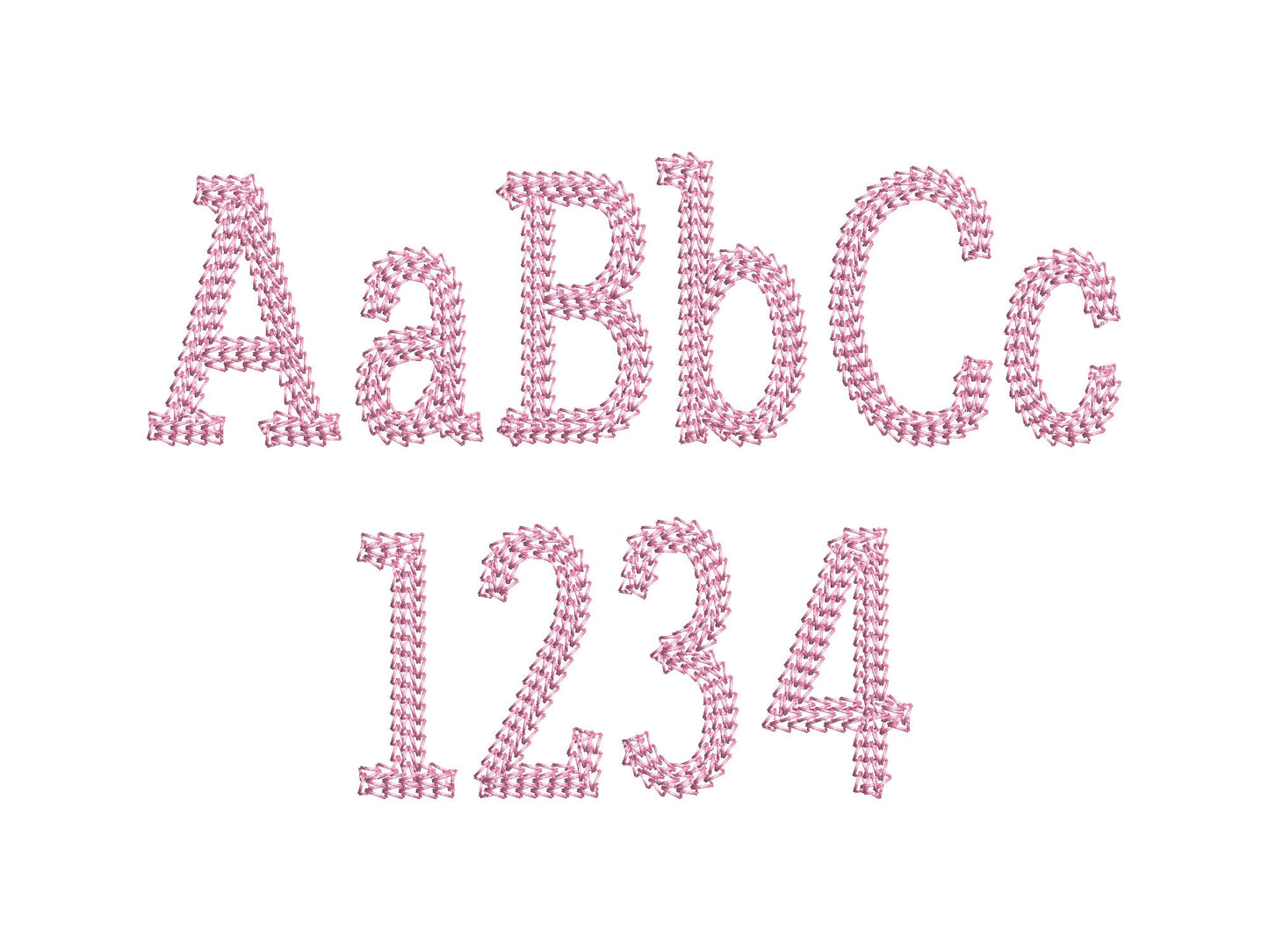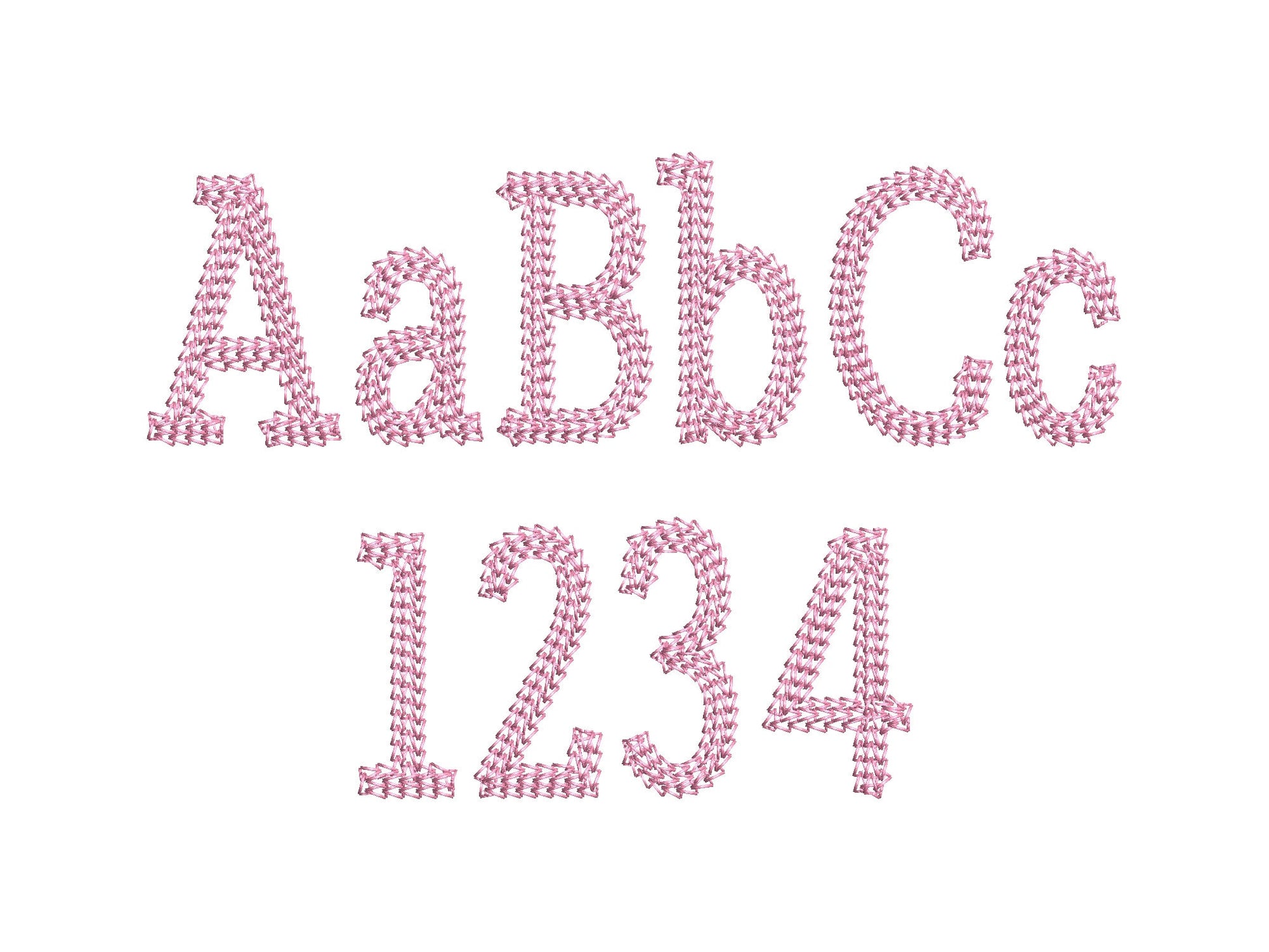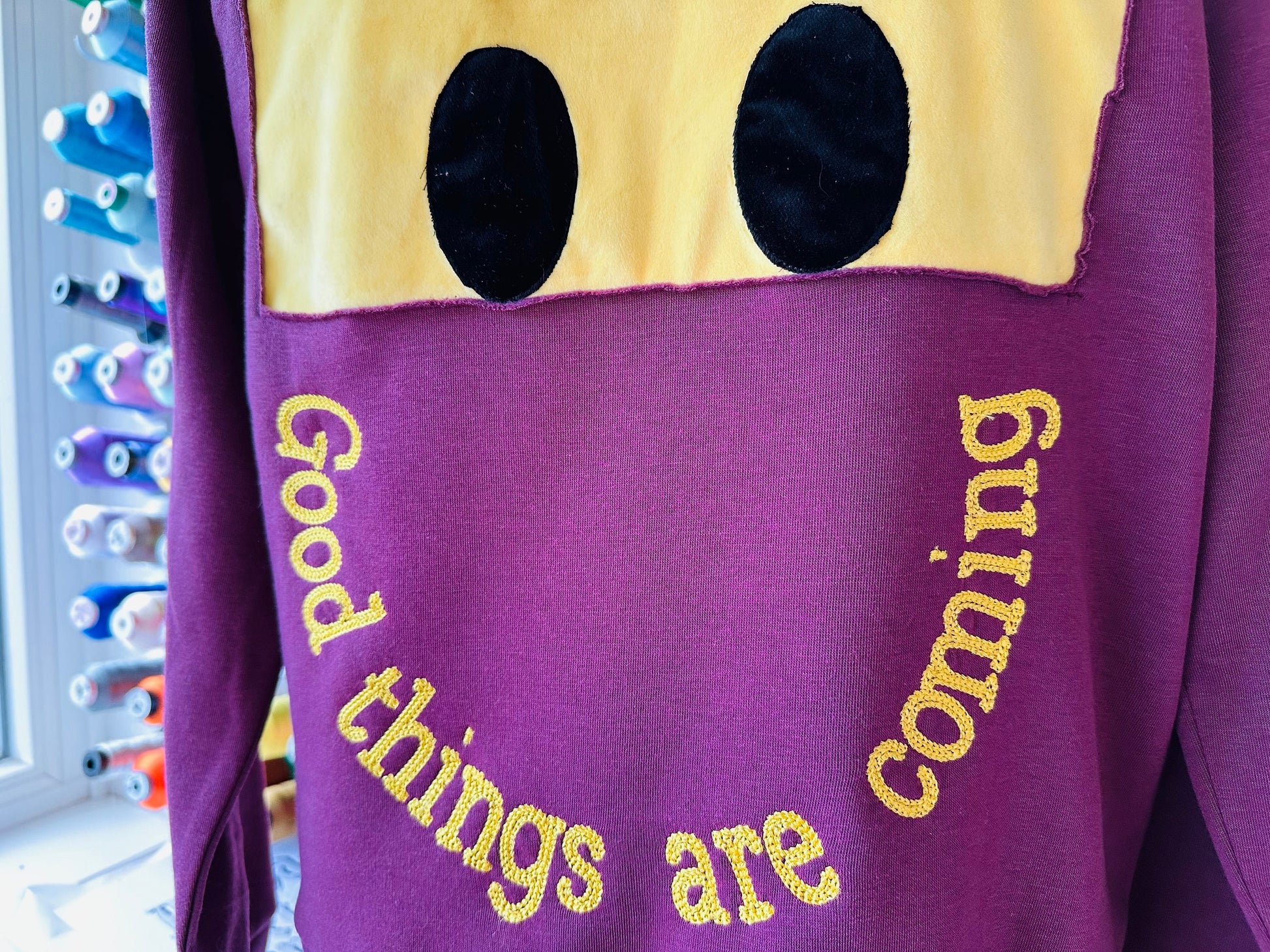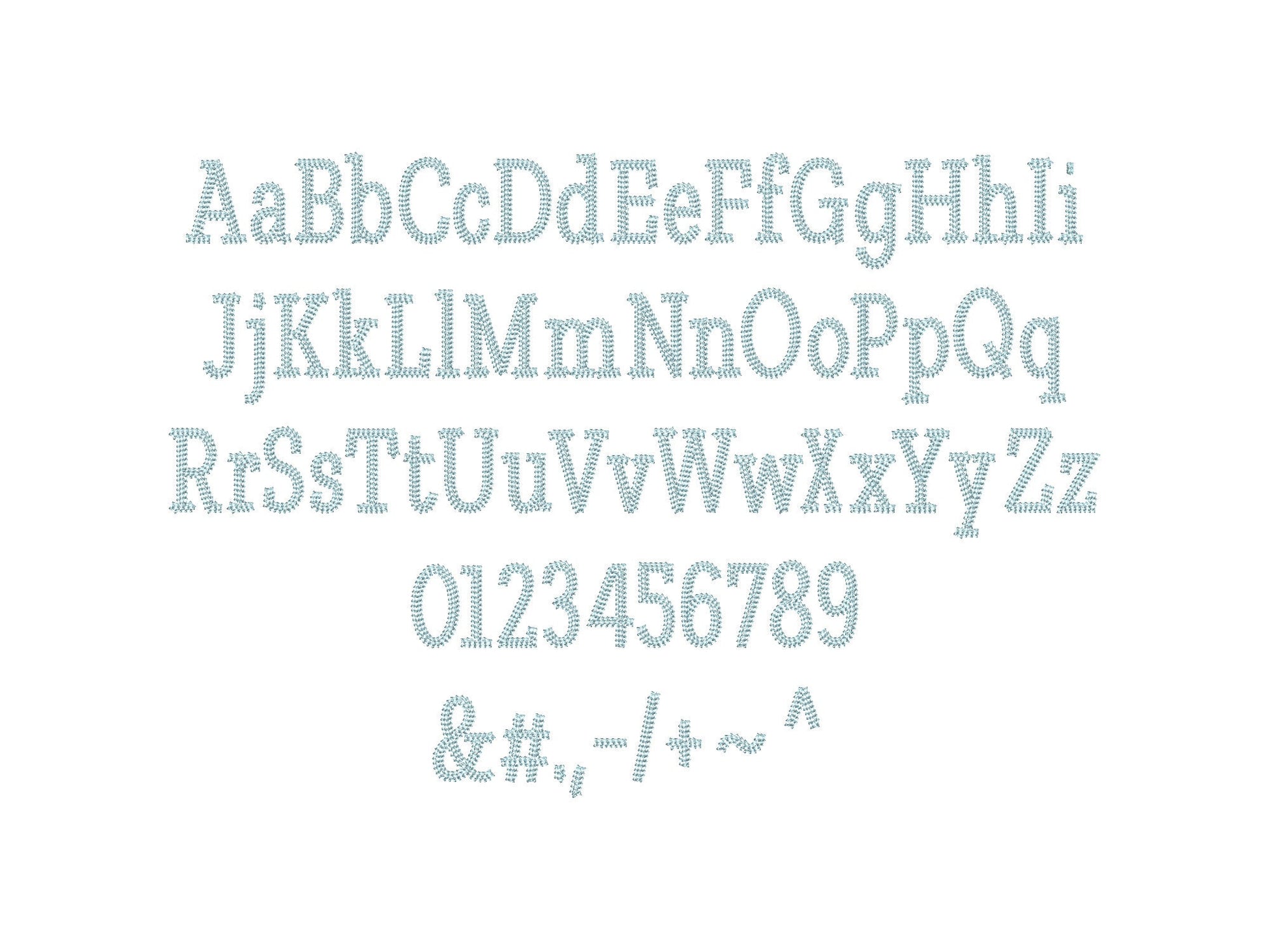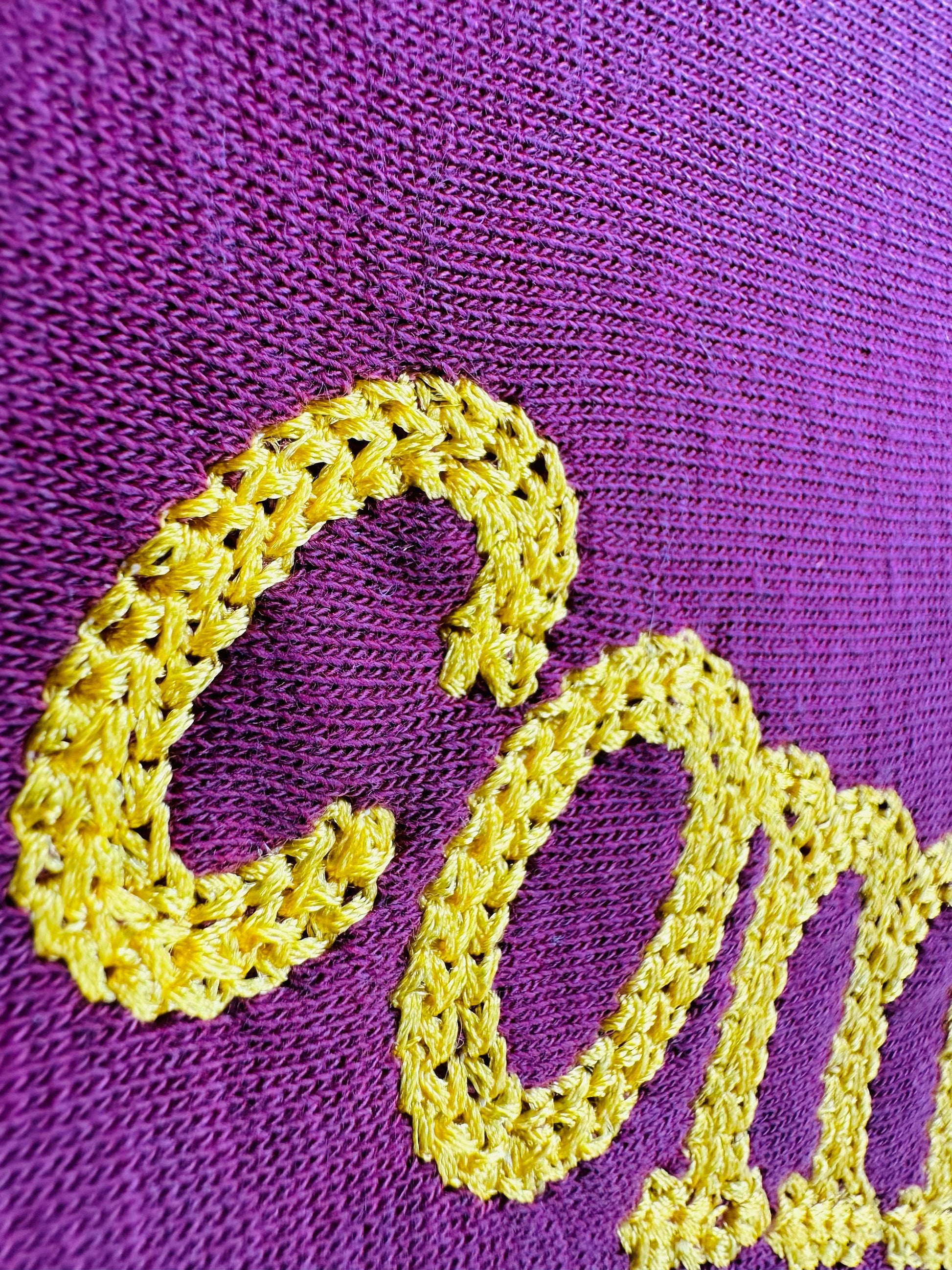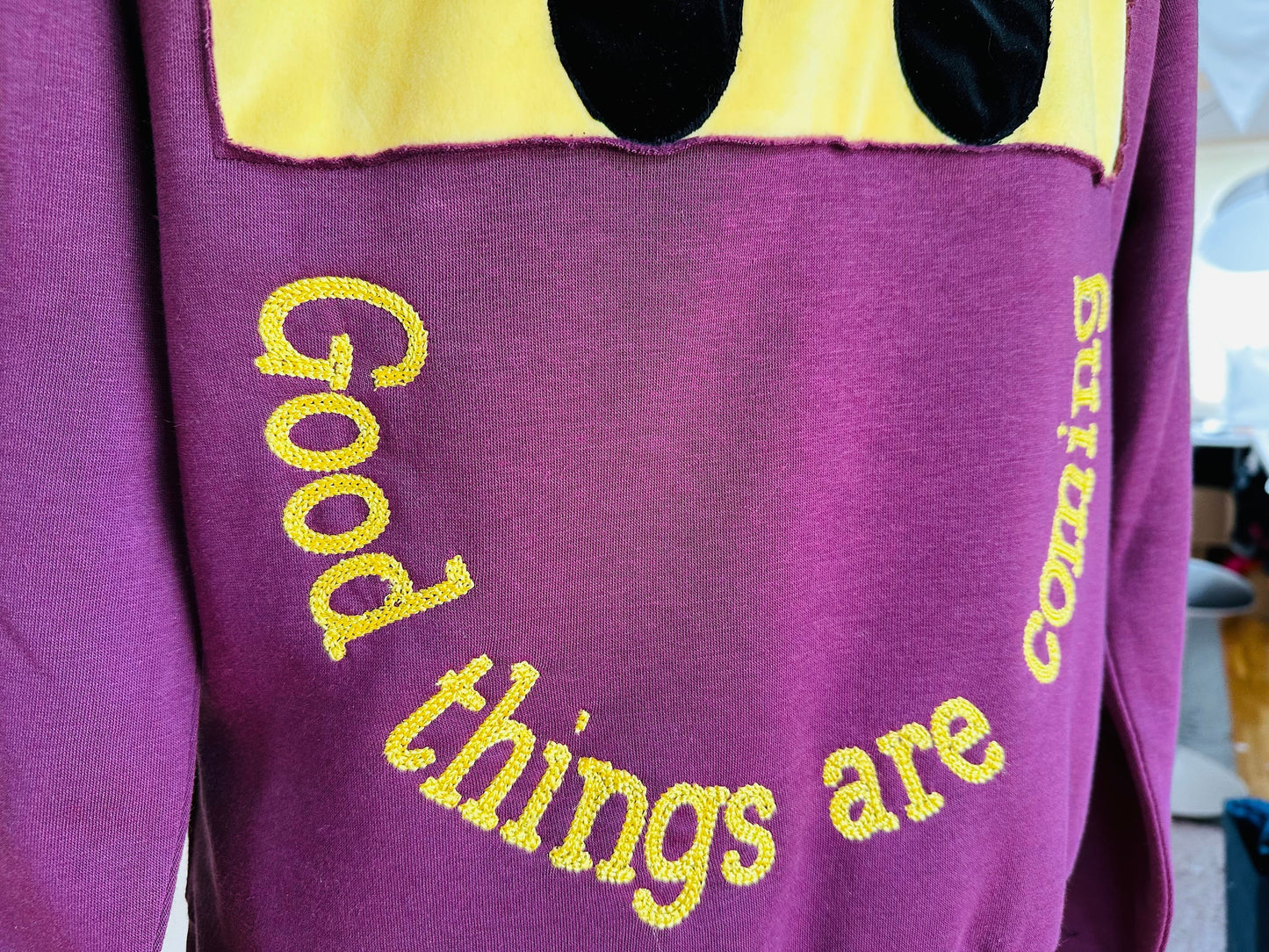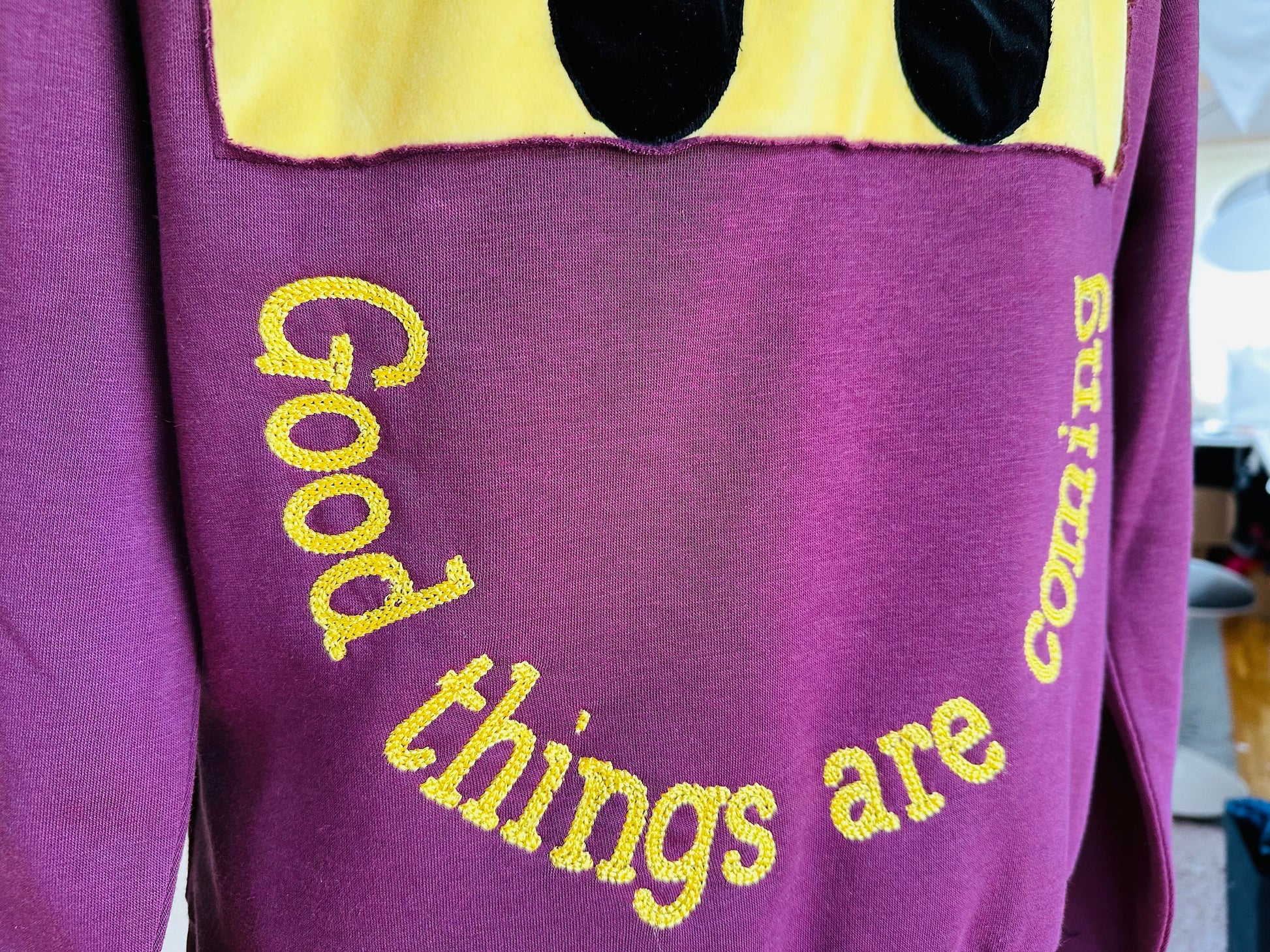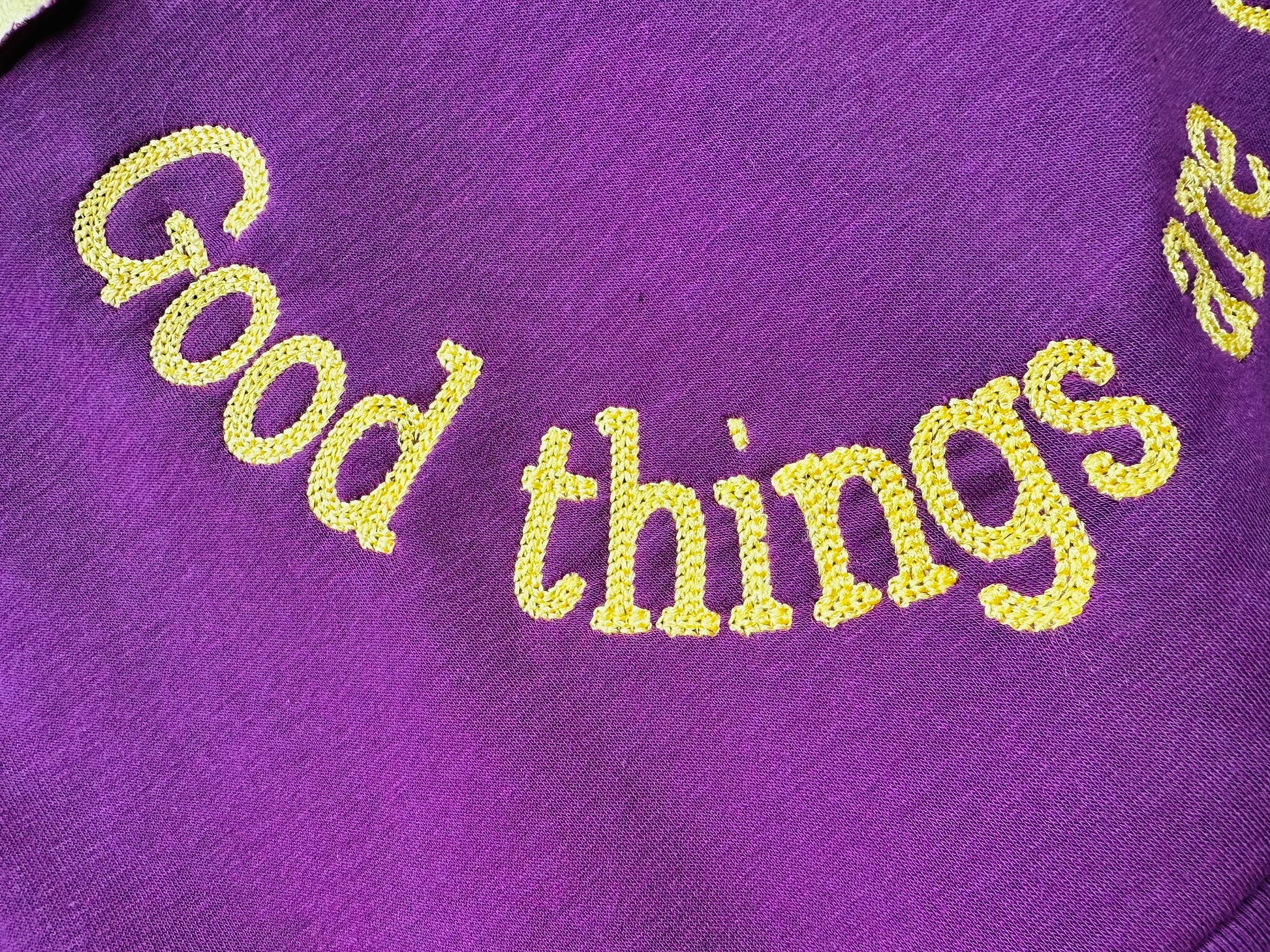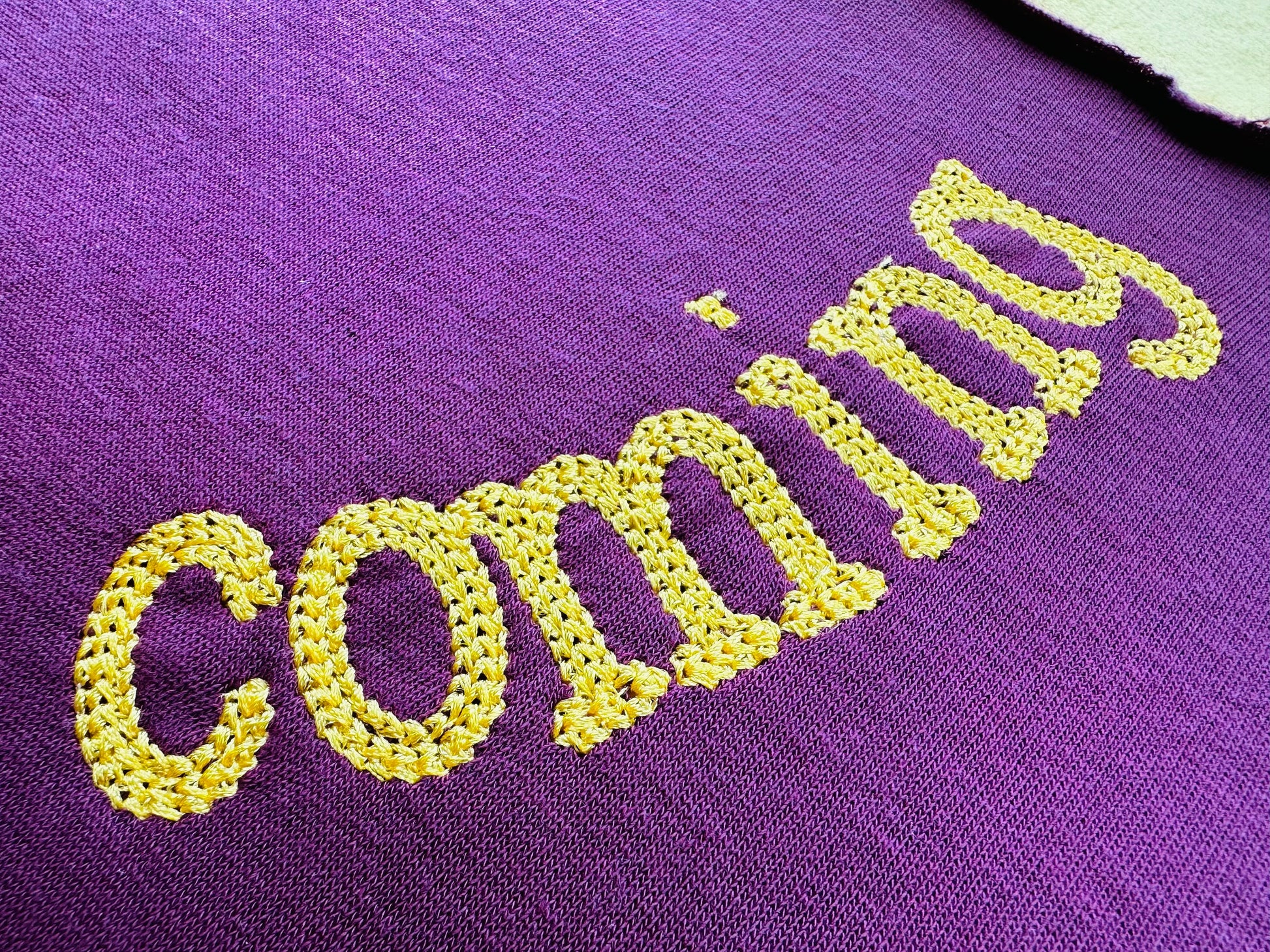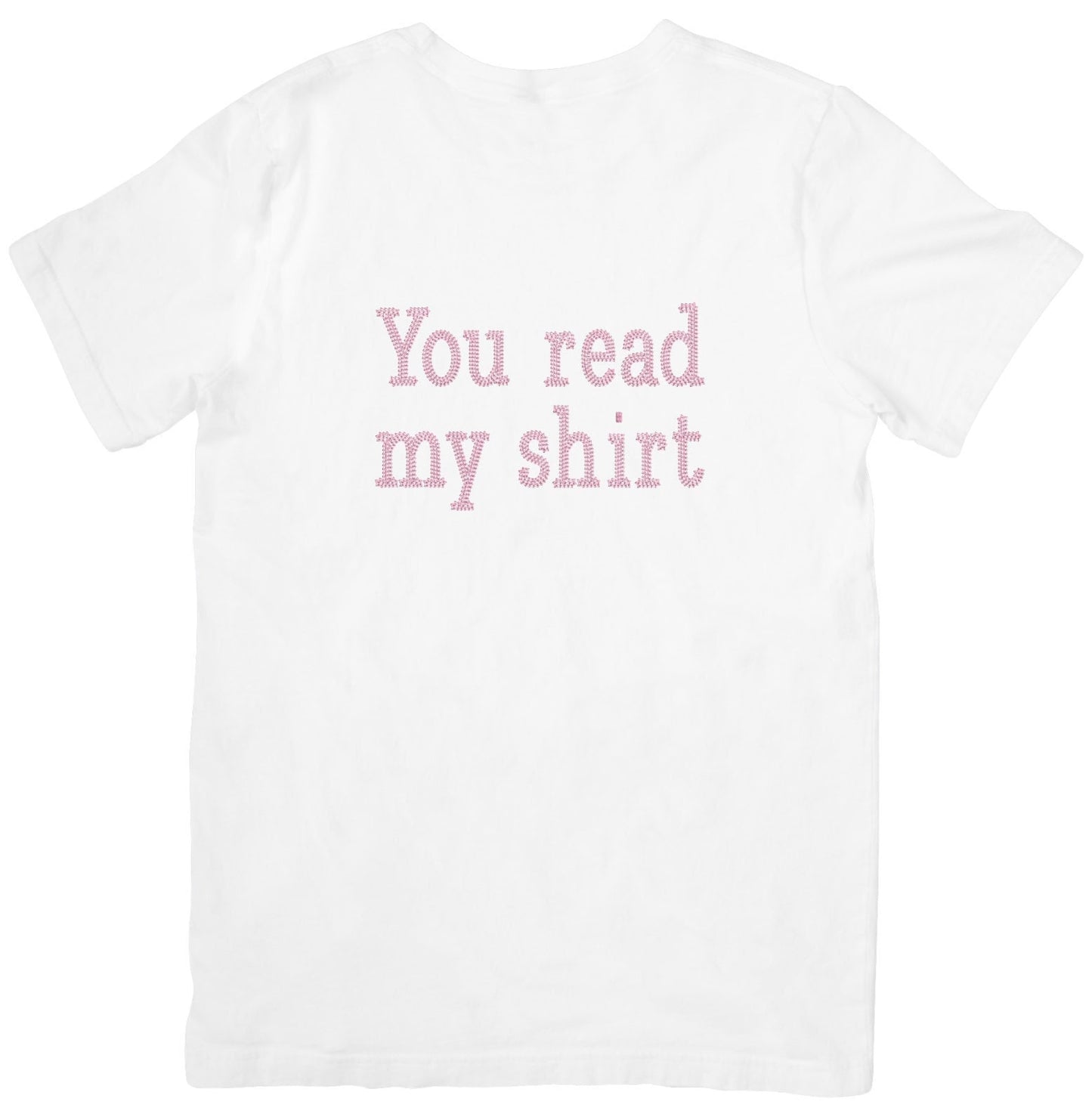
Or click to open the linkA block font in chain stitch with a hand-stitched look. Great for knit sweaters, sportswear and monograms.
Uppercase and lowercase letters, numbers 0 to 9 and punctuation. Five sizes: 1.4, 1.8, 2.2, 2.7 and 3.3 inches.